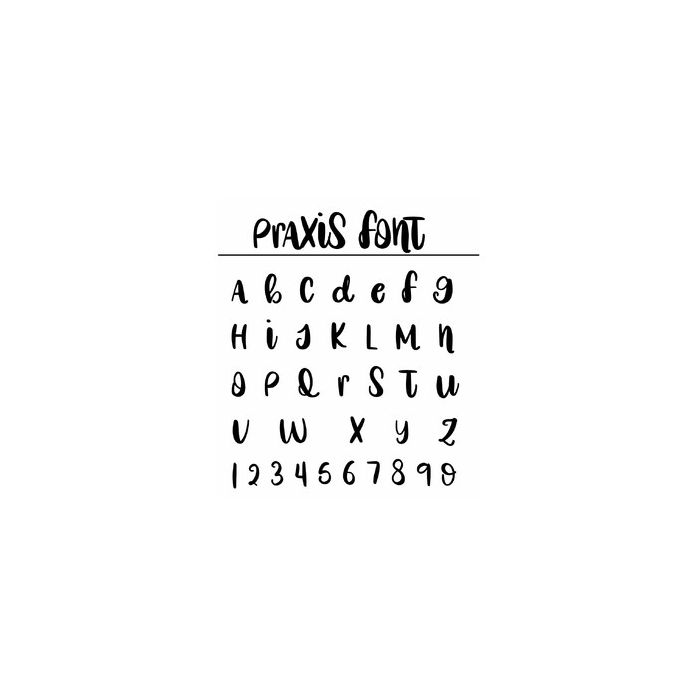
Praxis Font is a Display Decorative hand-lettered font with a casual style. It contains mixed capitals and small letters maintaining a playful careless character.